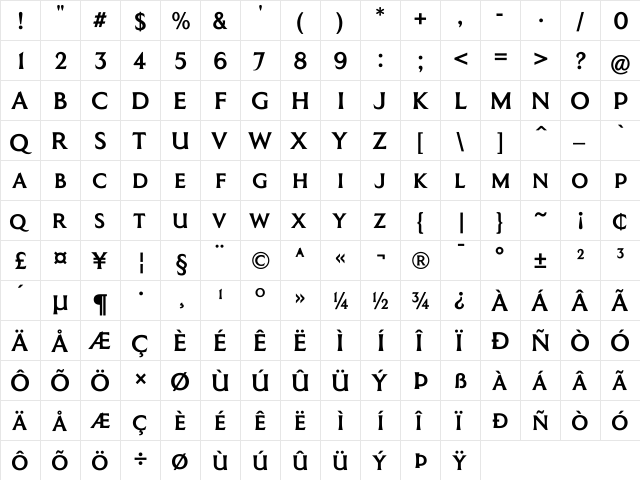
Coinage Caps Kruger Gray Regular
| Designer | Keith Bates |
Design Context for Coinage Caps Kruger Gray Typeface
Coinage Caps Kruger Gray takes a measured approach to typography — its balanced proportions and neutral character make it a reliable workhorse for both digital and print work.